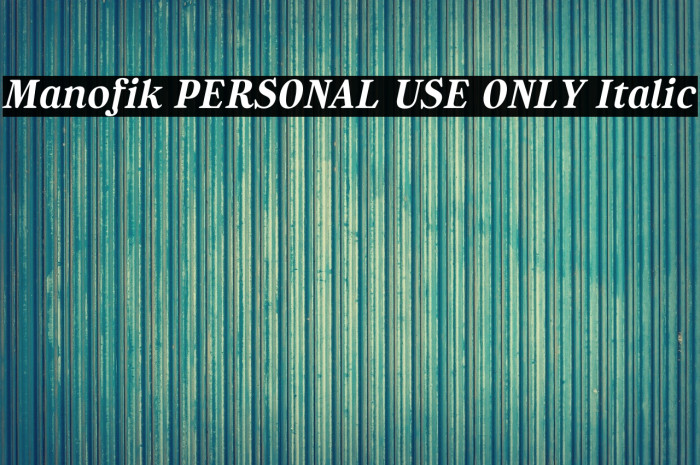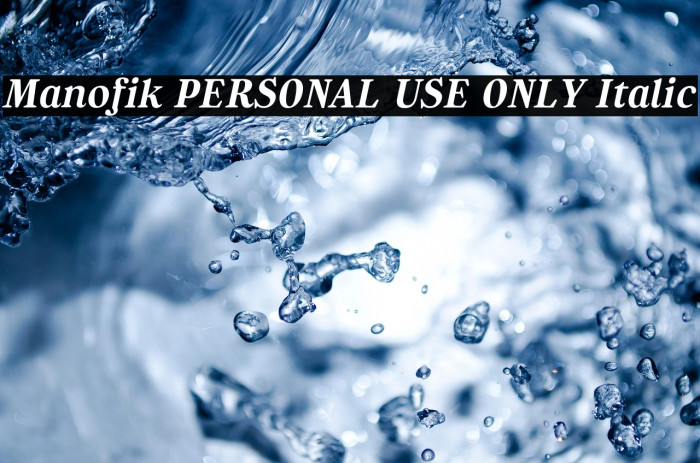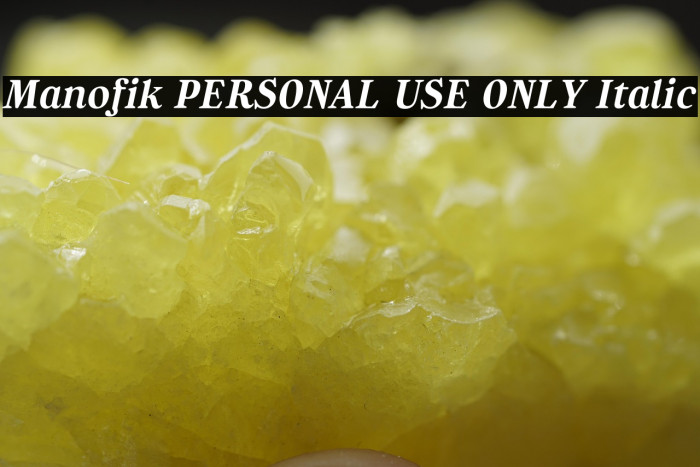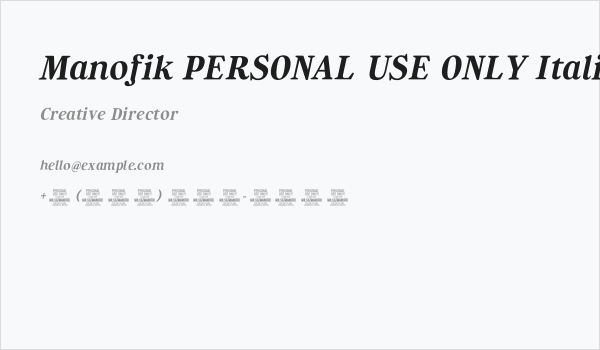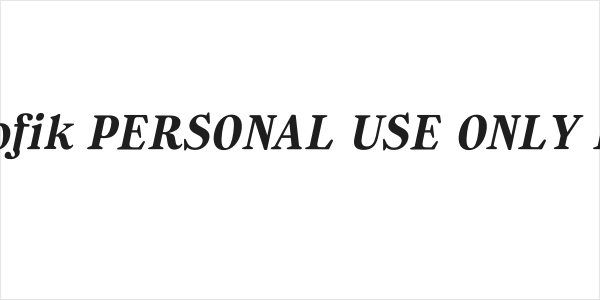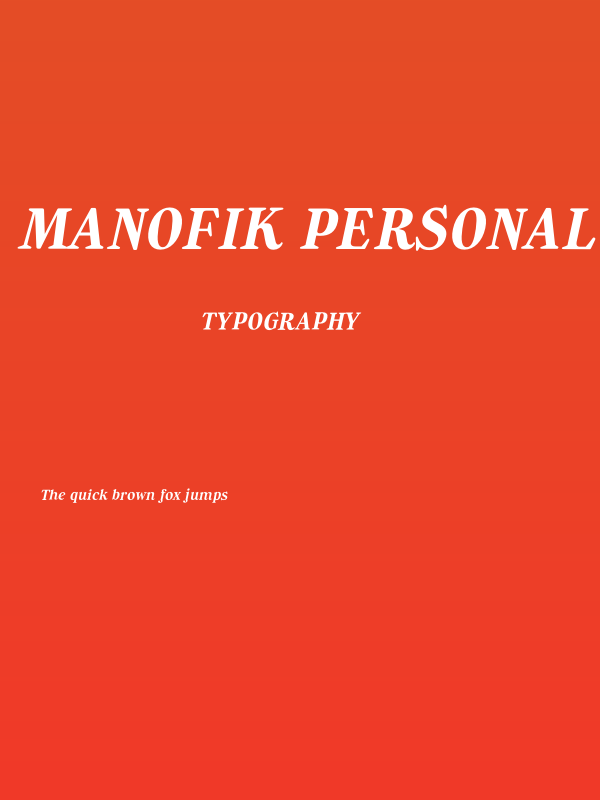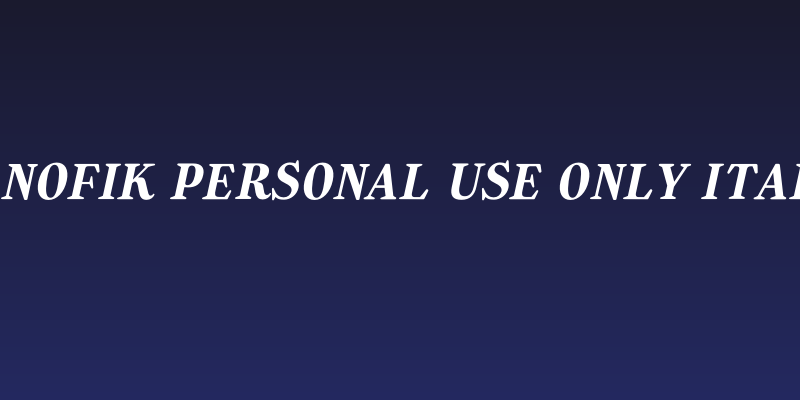
Manofik PERSONAL USE ONLY Italic Font
Manofik PERSONAL USE ONLY Italic Description
This font features a classic italic style with a slight slant, giving it an elegant and sophisticated appearance. The characters are well-defined with moderate stroke contrast, which enhances readability while maintaining a stylish flair. The uppercase letters exhibit a traditional serif design, while the lowercase letters follow suit with a consistent and harmonious flow. The numerals and special characters are crafted to match the overall aesthetic, ensuring a cohesive look across all text elements. This font is ideal for projects that require a touch of elegance and formality.
| Use Case | Headlines, Invitations, Editorial design |
| Proposed Projects | Ideal for wedding invitations, formal event programs, elegant branding, and editorial design. |